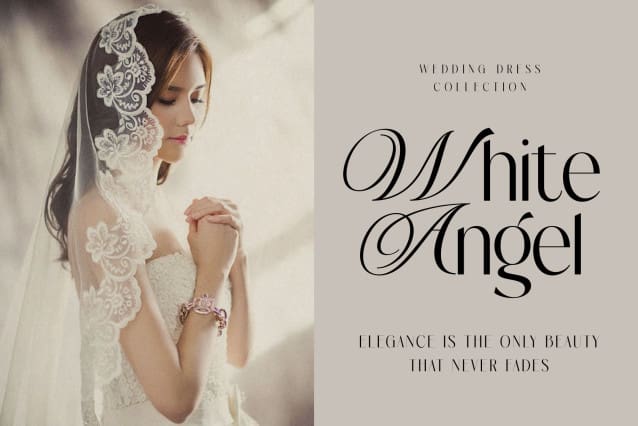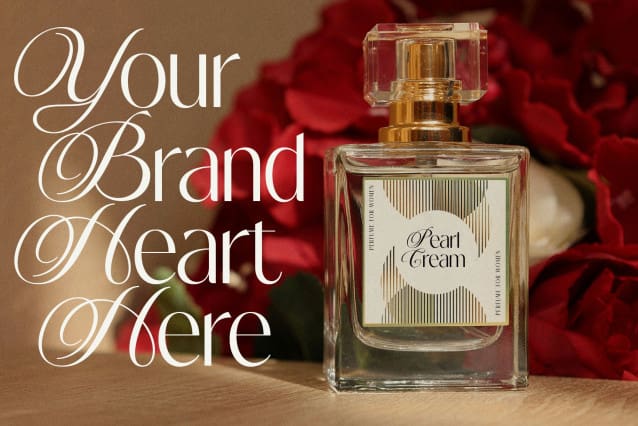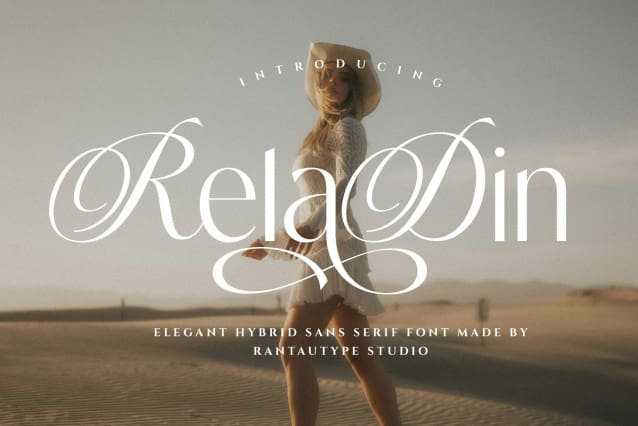
Reladin Hybrid Font
Reladin Hybrid Font is elegant hybrid font with blend script and sans serif font. Reladin bring elegant touch and femininity to make beautiful design project. We love how alternate uppercase look flowles and beautiful.
Reladin is a beautiful choice for any creative endeavor, creating elegant, modern, chic, lifestyle design such as logotype, title, cover, branding, invitations, wedding designs, display and magazine, social media posts, advertisements, printed quotes, product packaging, corporate brand, product designs, labels, photography, watermarks, special events and any other project with elegant touch.